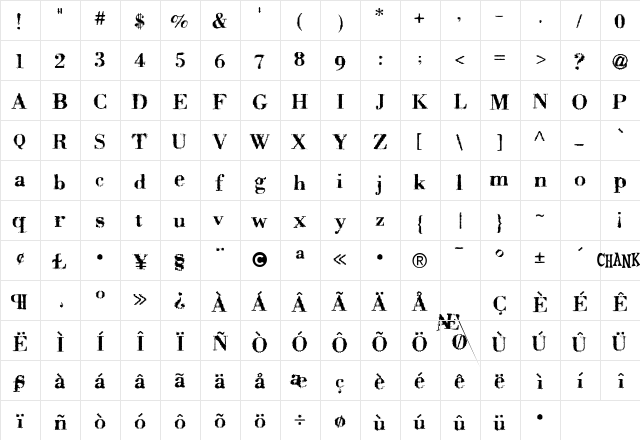
Badoni Regular
Design Context for Badoni Typeface
Badoni takes a measured approach to typography — its balanced proportions and neutral character make it a reliable workhorse for both digital and print work.
Pro Tip: Use Badoni in both headline and body roles to test its range before committing to a single application.